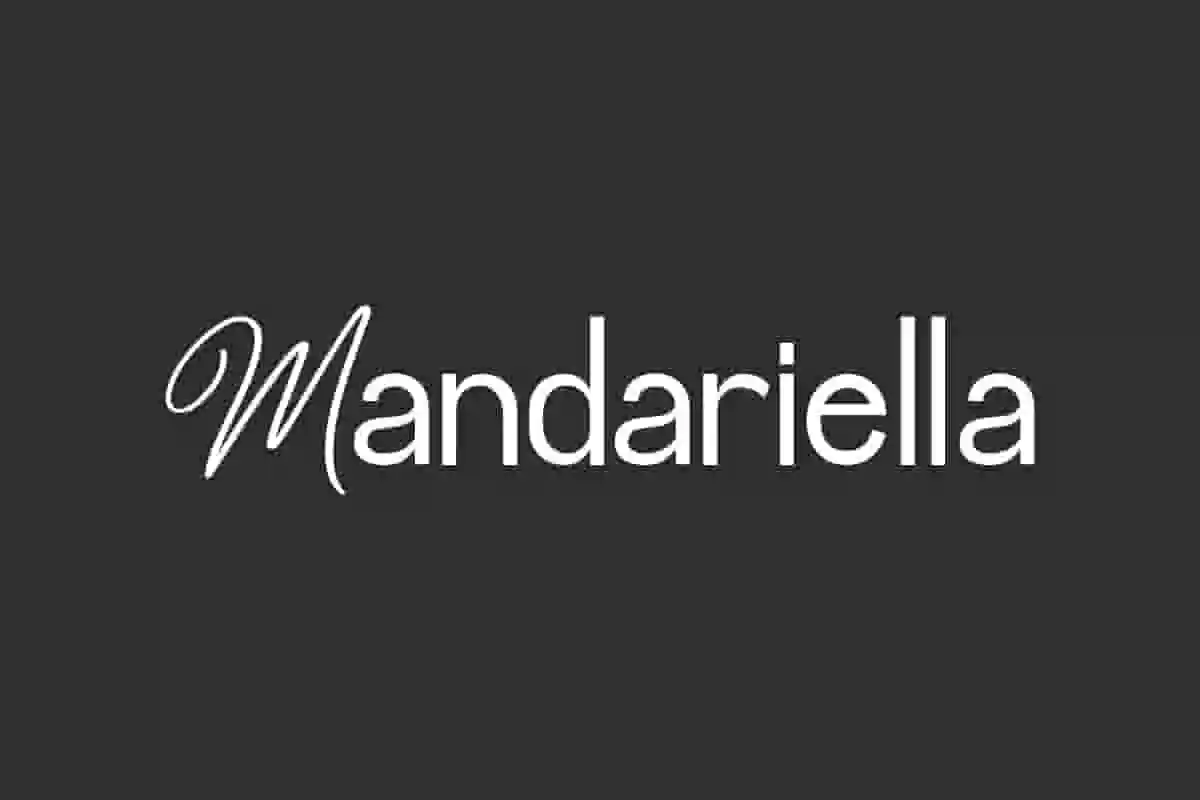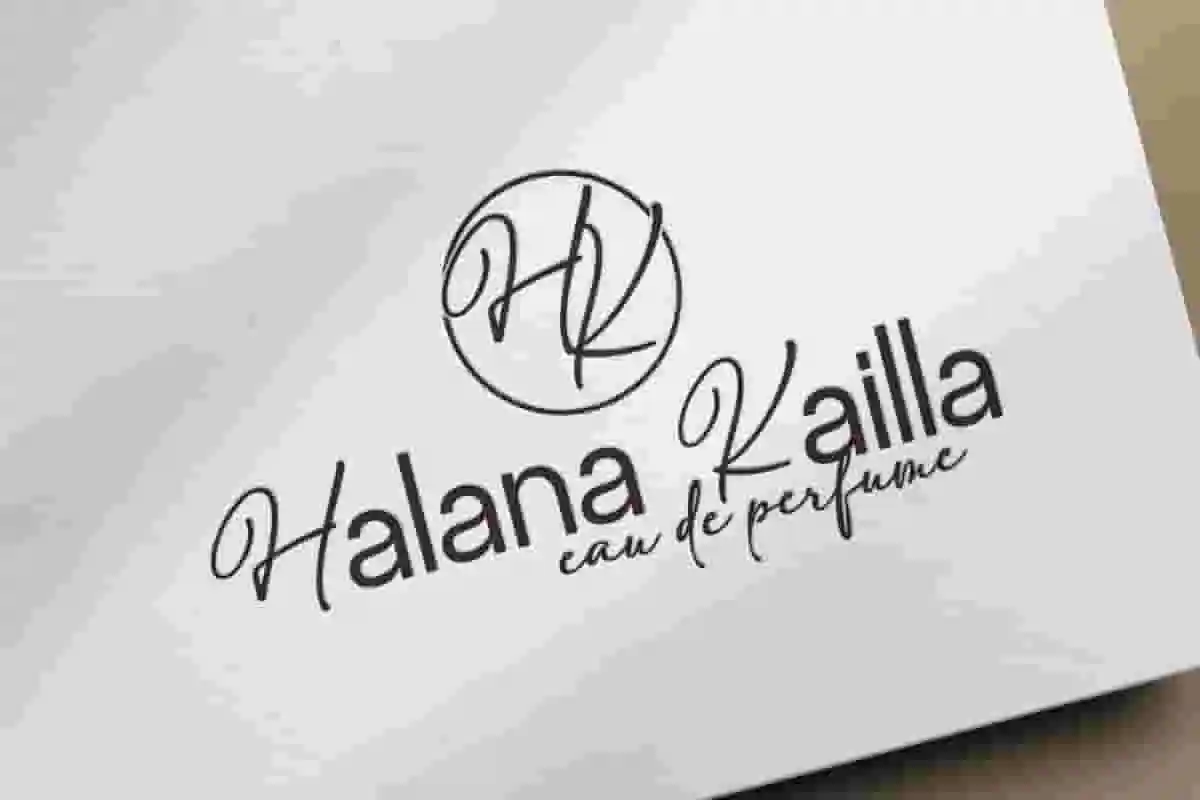
Mandariella Font is a combination of calligraphy script and sans serif font that exudes an elegant and artistic impression that is rare to see. With smooth strokes, naturally flowing letters, and charming details. This font will be perfect for various business, such as advertising, beauty product, cafe, design interior, event or wedding organizer, fashion, handcraft, homeware, photography, spa and salon, and more!
Mandariella Font includes full set of Uppercase and Lowercase Basic Characters, Numerals, Punctuation, and Symbol. This font presents a luxurious and exclusive feel. Making it a perfect choice for a variety of design, such as invitation, brand logo, brochure, custom design, label, packaging design, quote, screen printing, stationery, website, etc.